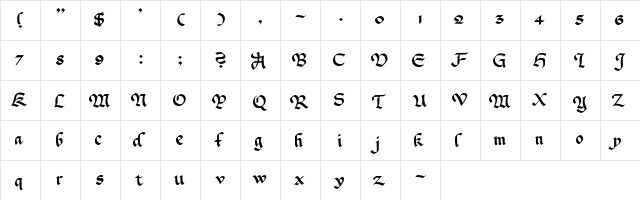
CallifontsB15PostScript Regular
Design Context for CallifontsB15PostScript Typeface
CallifontsB15PostScript flows with the natural rhythm of handwritten lettering, making it ideal for designs that call for warmth and personal expression.
Font Pairing: Combine CallifontsB15PostScript with a simple geometric sans for maximum contrast — the tension between flowing curves and clean structure is a classic typographic pairing.
Pro Tip: Pair CallifontsB15PostScript with a clean sans-serif for supporting text. The contrast between fluid script and geometric structure creates an elegant typographic hierarchy.